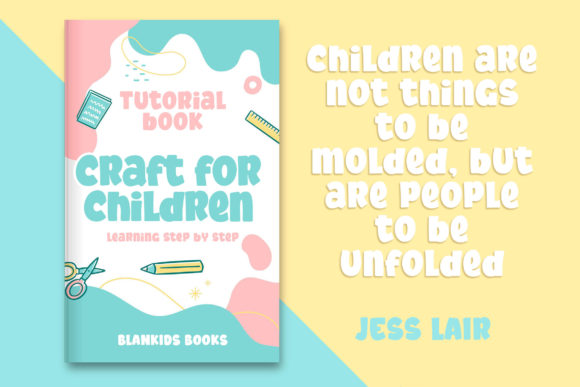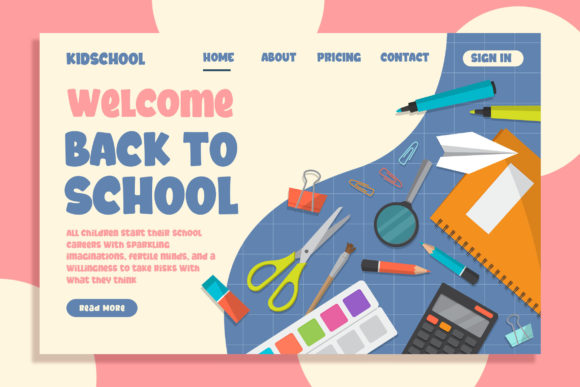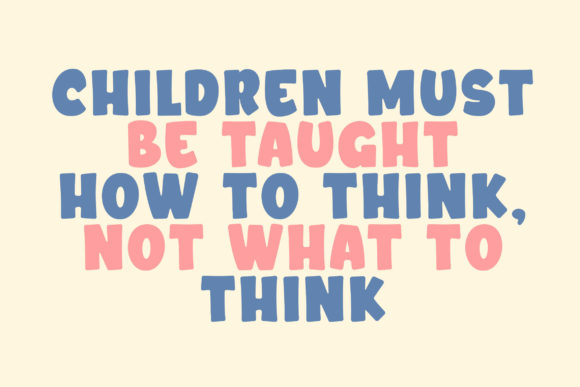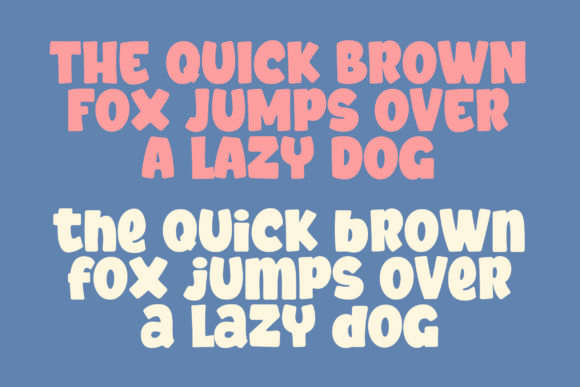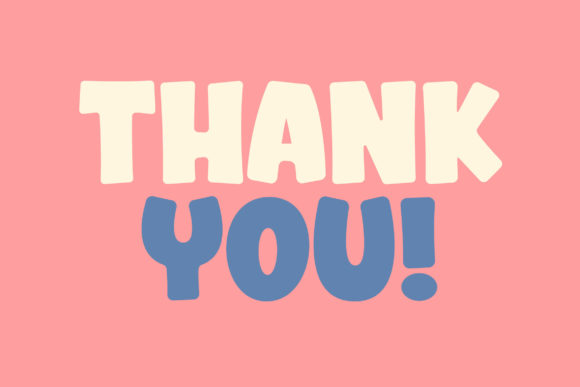
Introduction to Maverlo Font
Maverlo is a bold and thick lettered display font.
Whether you use it for cartoon related designs, children games or just any creation that requires a lovely touch, this font will be an amazing choice .
Key Features of Maverlo Font
Why Choose Maverlo Font?
Maverlo Font offers exceptional quality and versatility, making it a valuable addition to your design toolkit. Whether you’re creating for personal projects or commercial use, Maverlo Font delivers professional results.